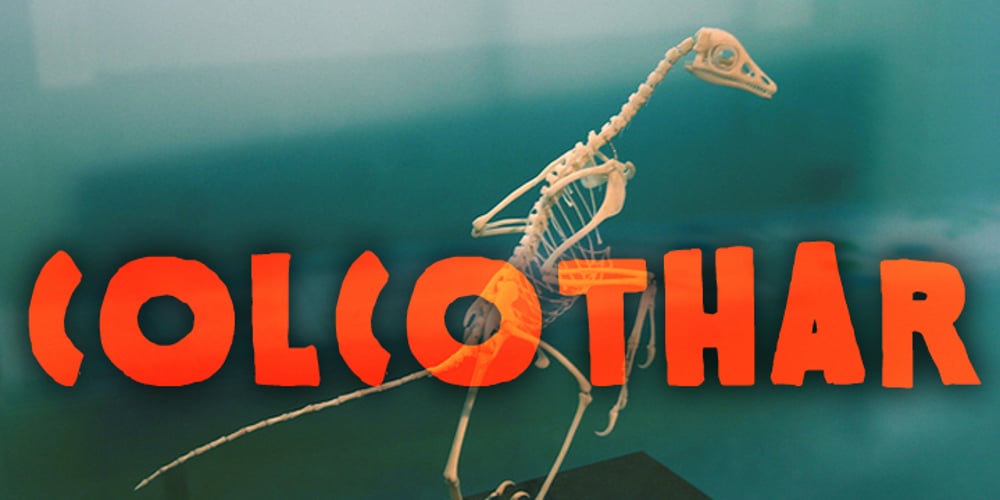
Colcothar Font Family was designed by Fabrice Ducouret and published by Fabulous Rice. Colcothar contains 2 styles and family package options. Colcothar is a font based on a calligraphic alphabet I ofter use for my comic books, my film title sequences, or my notebooks. It made sense to turn it into a font, especially since it looks hand-written and quality fonts that look hand-written are sometimes hard to find. It will look great as a header for an article, for a logo, the title of a film… or for anything you think appropriate!